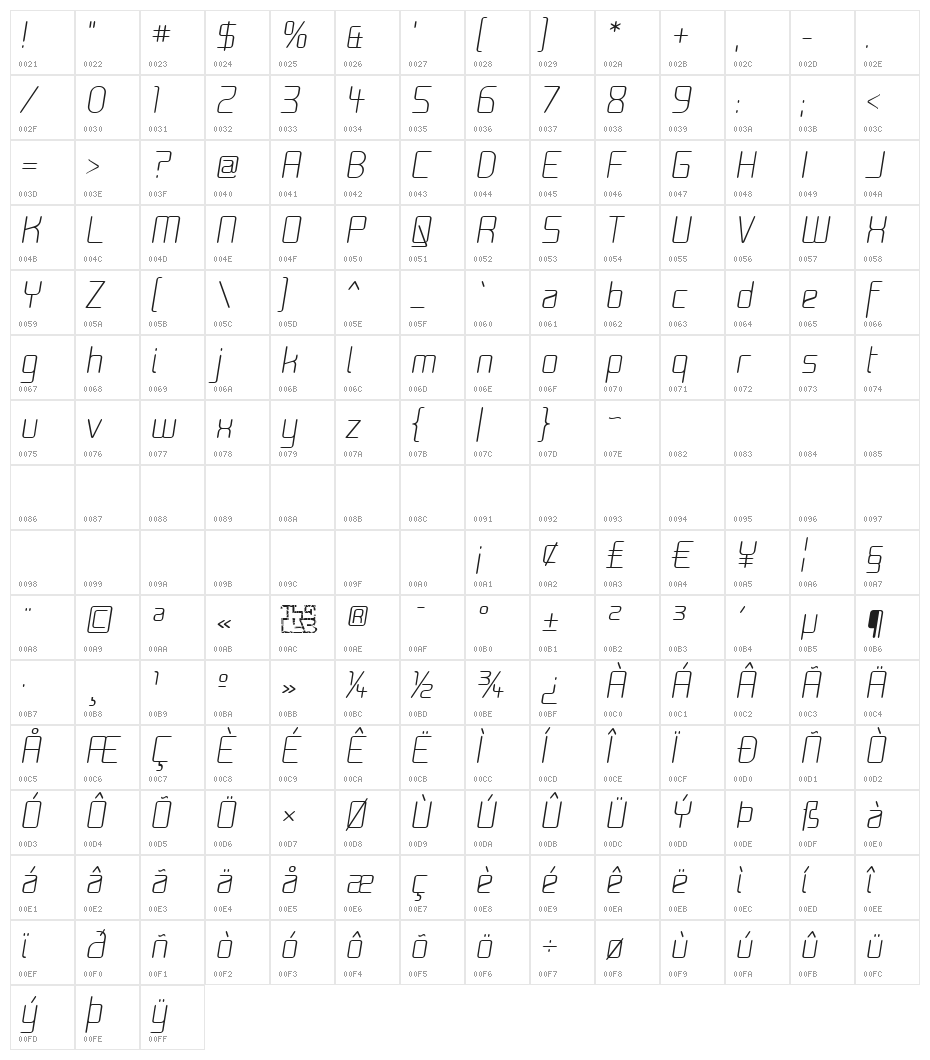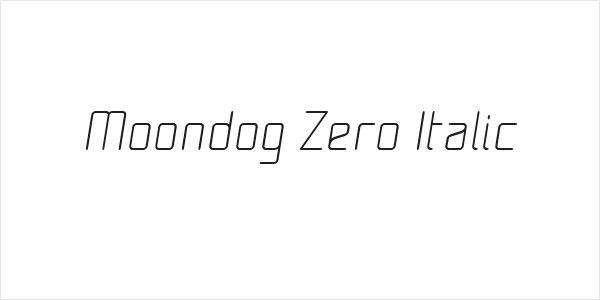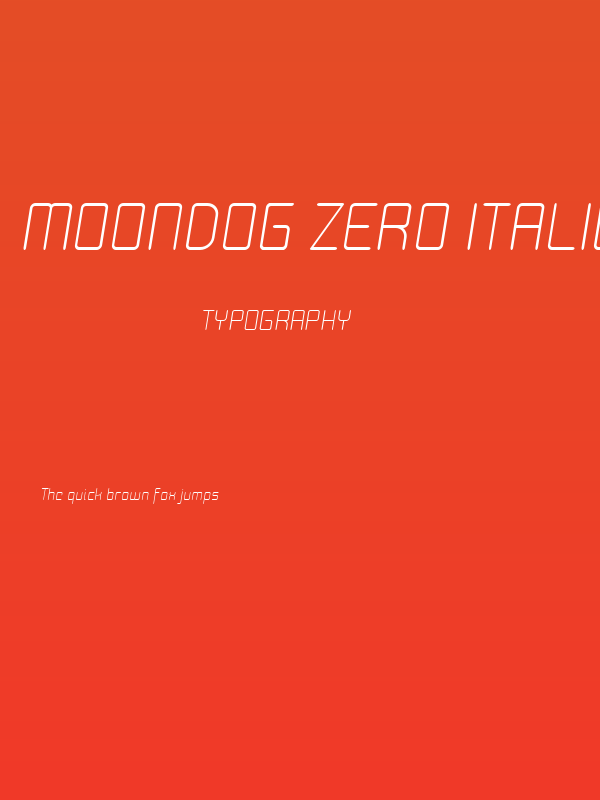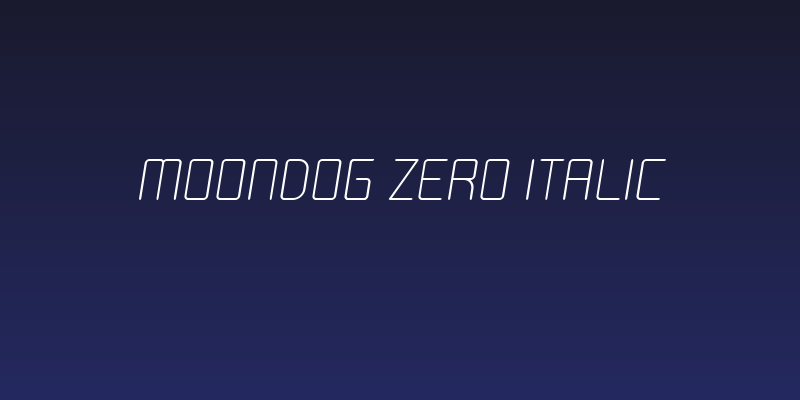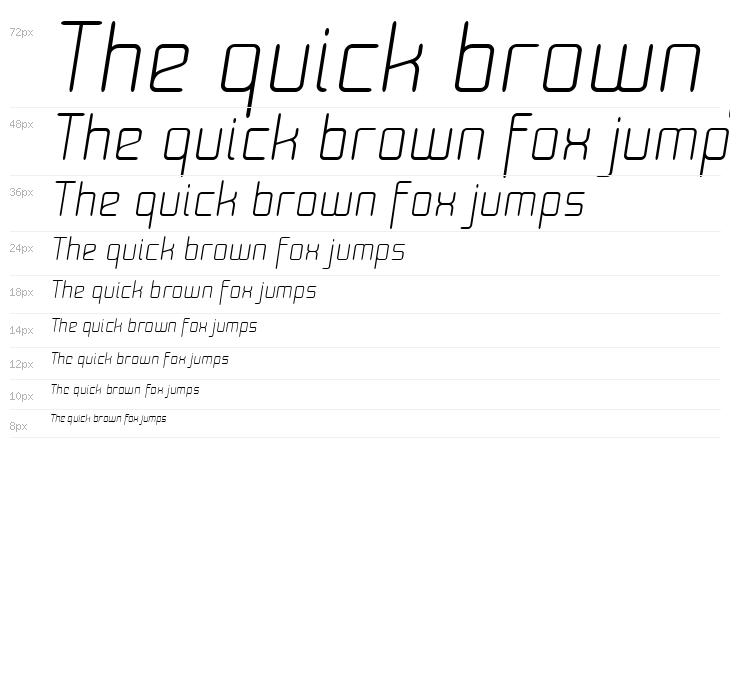
Moondog Zero Italic Font
Moondog Zero Italic Description
This font features a sleek, modern design with a distinct italic slant, giving it a dynamic and forward-moving appearance. The characters are composed of clean, continuous lines with rounded corners, creating a sense of fluidity and motion. The uppercase and lowercase letters maintain a consistent style, with a uniform height and width that enhances readability. The numerals are similarly styled, offering a cohesive look across all characters. Special characters are included, maintaining the same elegant and streamlined aesthetic. The overall design is minimalistic yet expressive, making it suitable for a variety of contemporary applications.
| Use Case | Headlines, Logos, Tech Designs |
| Proposed Projects | Ideal for modern branding, tech-related designs, and futuristic themes. |